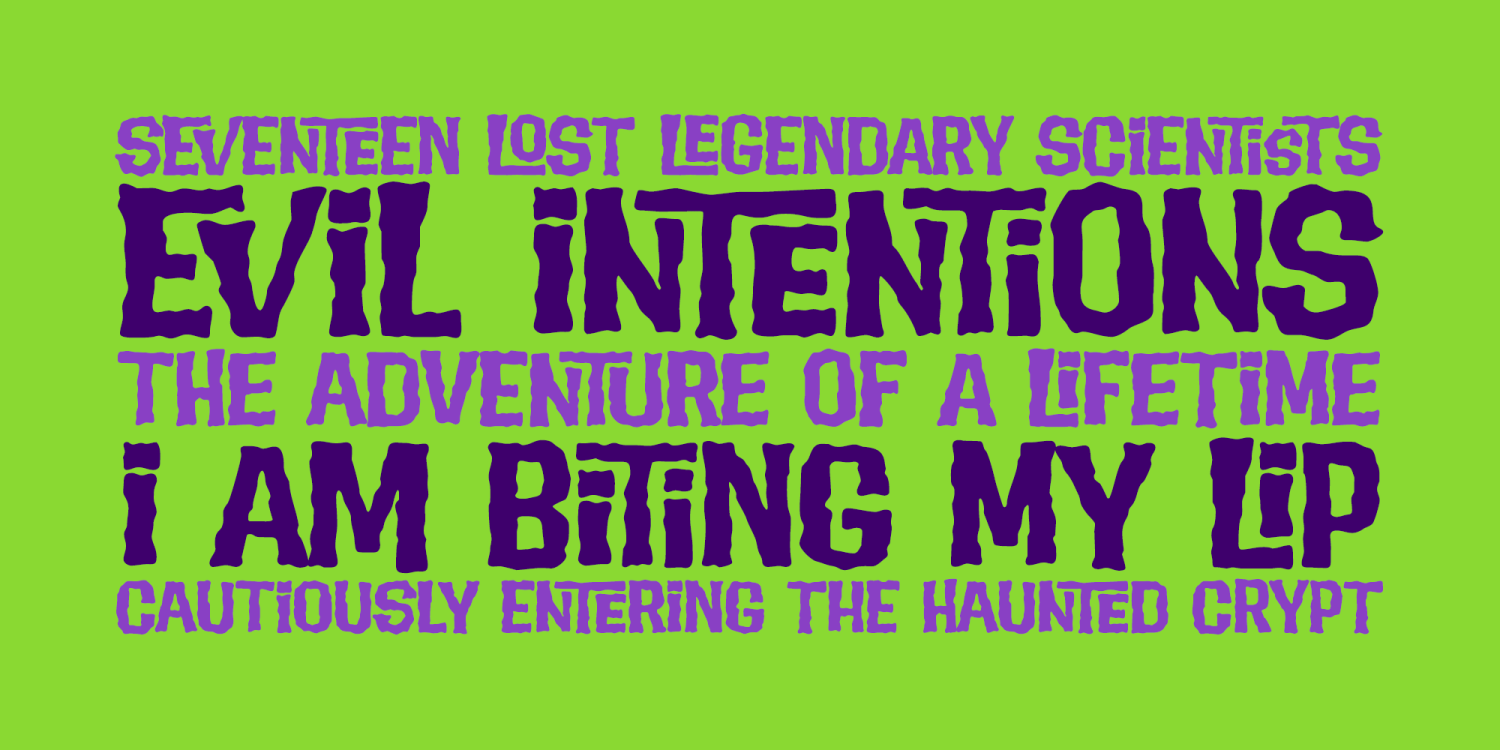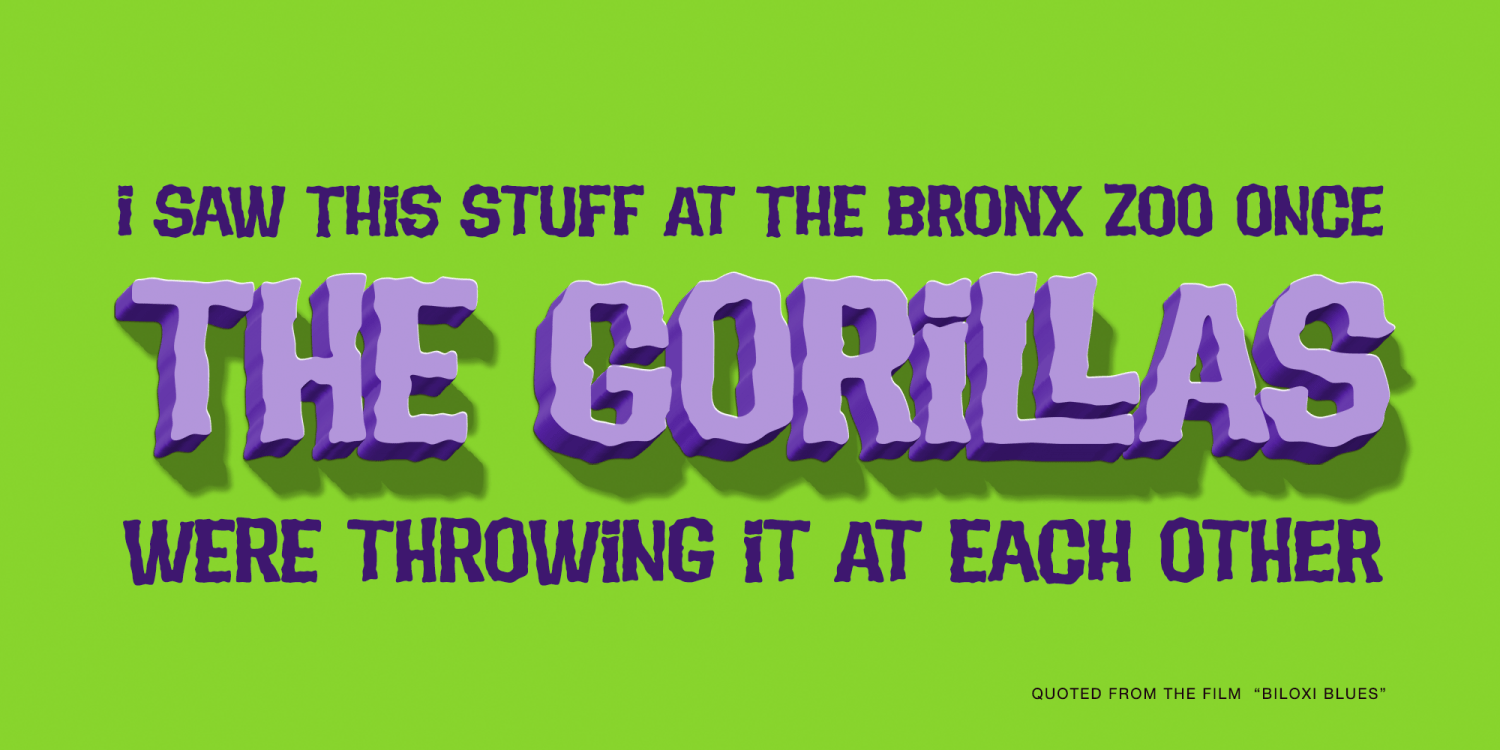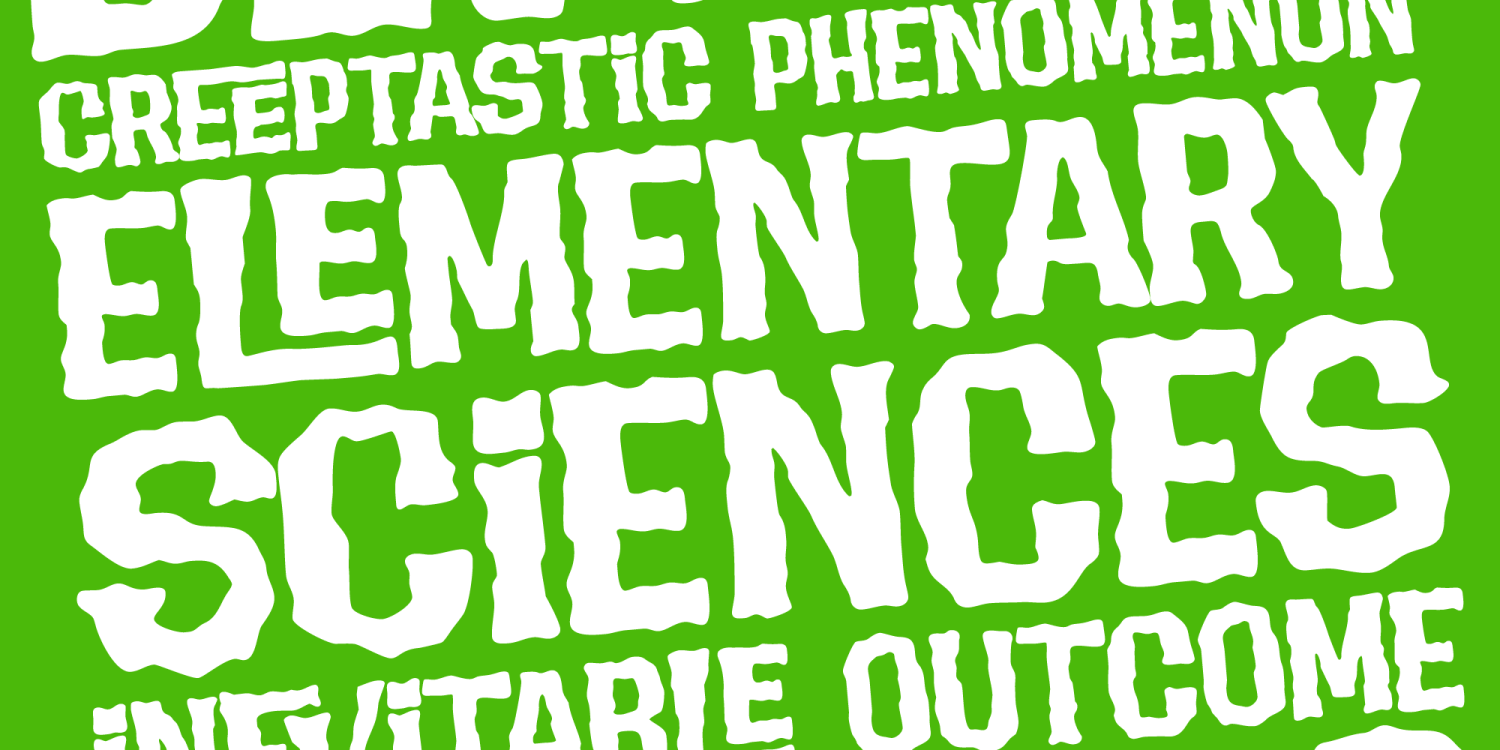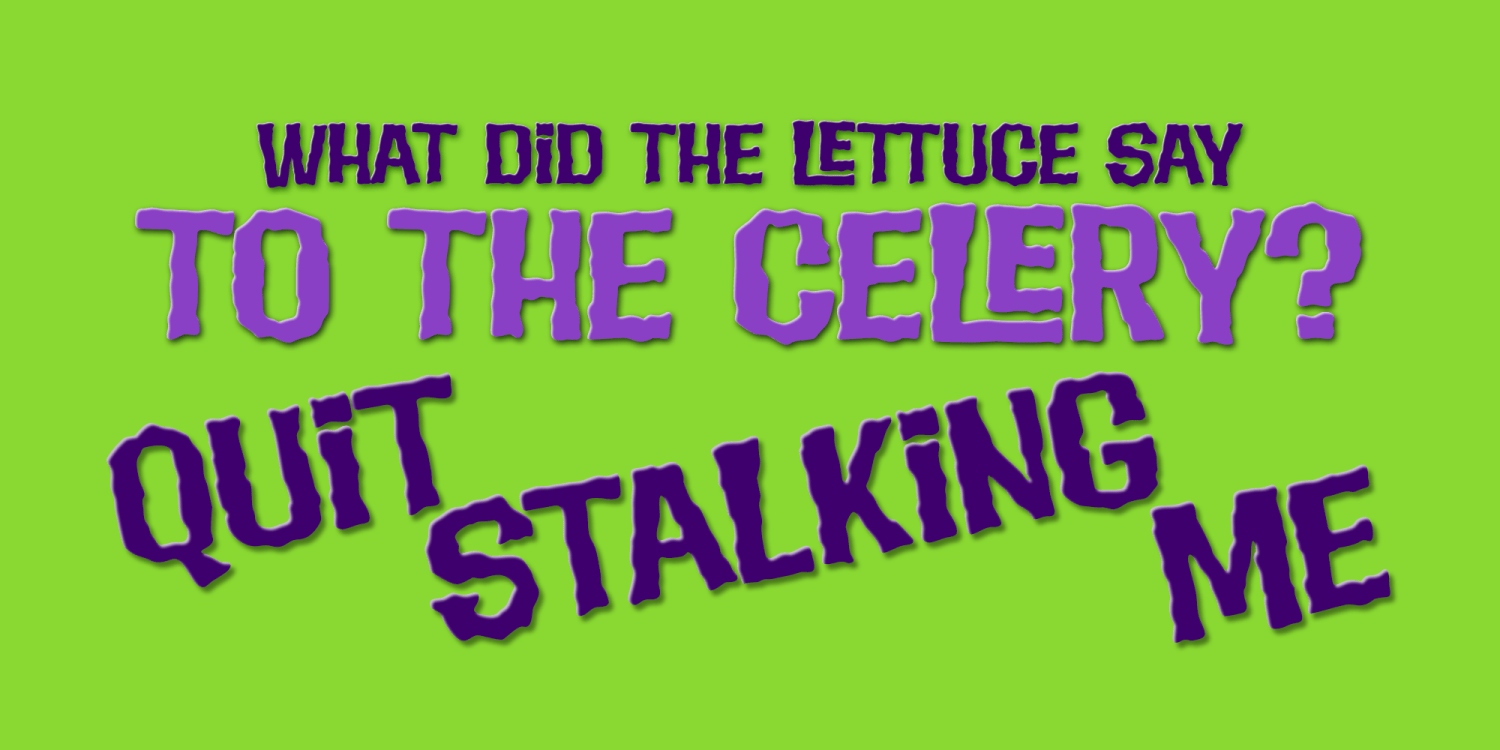
Evil Intentions PB
Evil Intentions is that lighthearted spooky font your looking for this Halloween! Inspired by an old Hanna Barbera comic Mr and Mrs. J. Evil Scientist, comes this visually shaken but friendly san serif font to stir you up. The Contextual Alternates feature in this font automatically alternates between the Capitals and alternate Capitals of the font to mix things up a bit and keep your type-settings lively, and the Stylistic Alternates feature throws a handful of playful ligatures in to even further make the letters playfully dance.